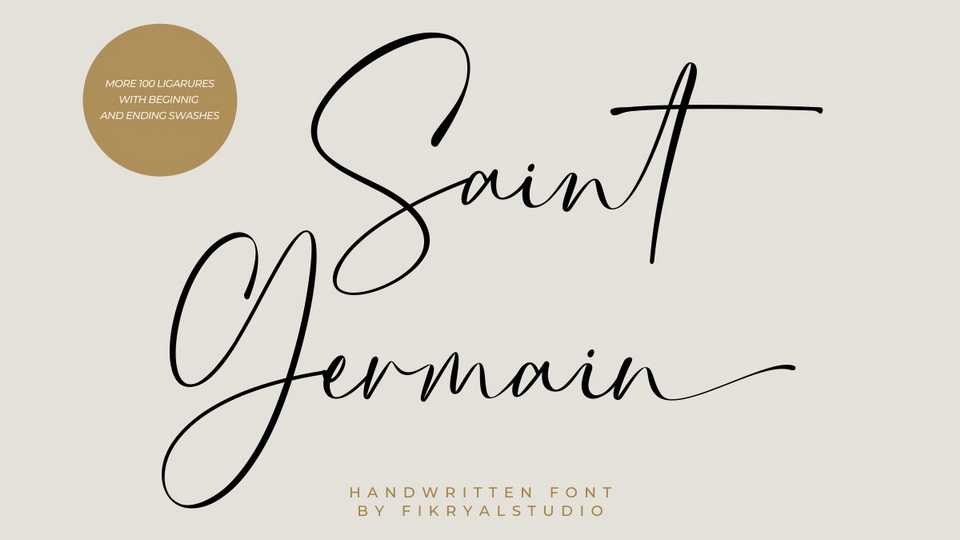
Download Saint Germain font, a modern handwritten font with a casual style, and suitable for your various design needs. Saint Germain is perfect for logo, branding, title, social media posts, advertisements, photography watermark, special event, magazine, web design, etc.